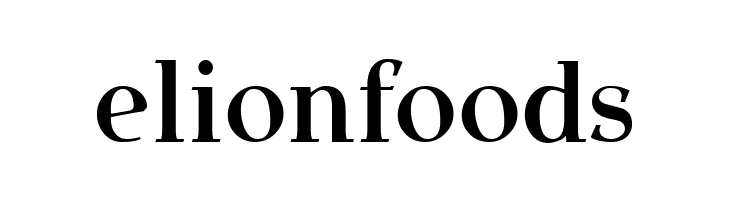
CaslonProSSK SemiBold Font
A classic serif font with semi-bold weight and elegant, traditional styling.
An elegant, swash-filled font with bold italic styling and high contrast.
CaslonProBlackSSK Italic Font
A classic serif font with elegant italic styling and moderate contrast.
CaslonTwoMediumSSK Italic Font
A classic serif font with elegant italic styling and refined serifs.
CaslonSwashBlackSCapsSSK Italic Font
An elegant, swash-style italic font with decorative and flowing strokes.